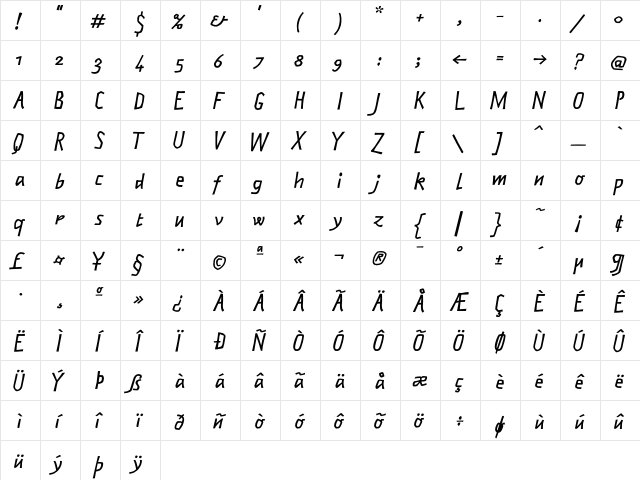
MattoSans BoldItalic
Design Context for MattoSans Typeface
MattoSans is a composed and adaptable typeface that performs quietly and consistently across a wide range of design contexts. The slanted form adds forward momentum and visual energy. The heavy weight commands attention and anchors typographic hierarchies.
Pro Tip: Use MattoSans for emphasis, pull quotes, and subheadings where its slanted energy can add rhythm to the layout.